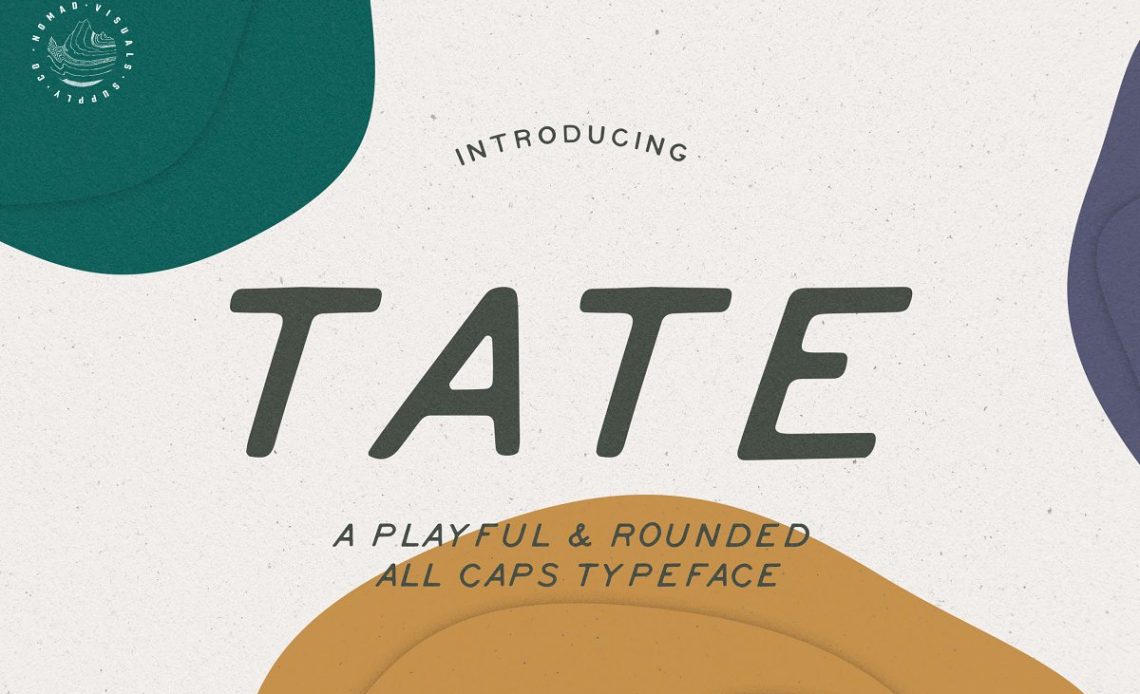
Looking for the best fonts to elevate your event menus? Look no further than the Tate Font, created by the talented team at Nomad Visuals Co. This unique font family is sure to captivate your audience with its playful and rounded all-caps style.
The Tate Font is not your average typeface. It is a hand-drawn masterpiece that exudes creativity and adds a touch of whimsy to any design. With its charming uppercases, numbers, and basic set punctuation, Tate offers endless possibilities for logo design, branding, and labels.
But what sets the Tate Font apart from the rest? It's the attention to detail and the addition of new special characters with accents. Now, you can add a touch of elegance to your designs with characters like Å, Ø, Ä, Ö, and many more. These special characters are available in both the Regular and Italic versions of the font, allowing you to create visually stunning compositions.
Whether you're designing event menus, digital products, or websites, the Tate Font is the perfect choice to give your creations a unique vibe. Its versatility and eye-catching appeal make it a must-have for any designer looking to make a statement.
But don't just take our word for it. Experience the magic of the Tate Font for yourself and see how it can transform your designs into works of art. Let your imagination run wild and watch as your ideas come to life with this captivating font.